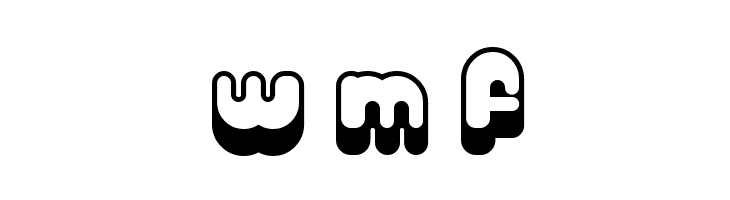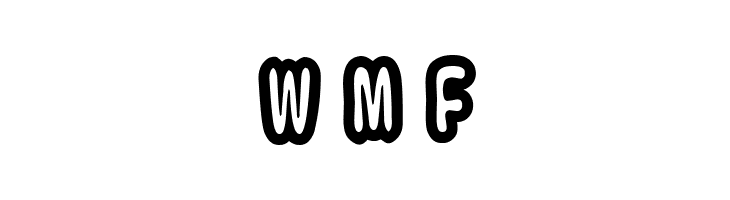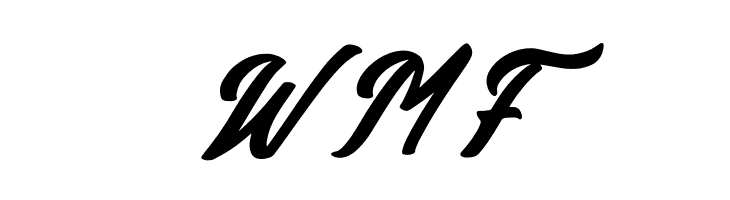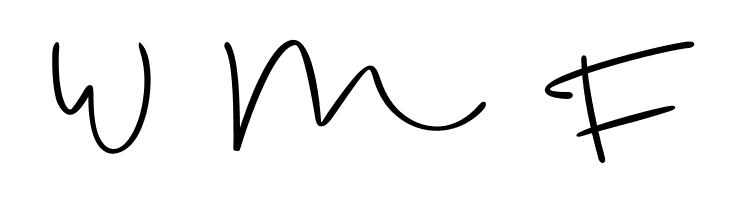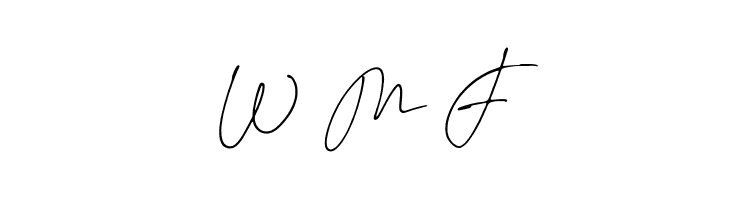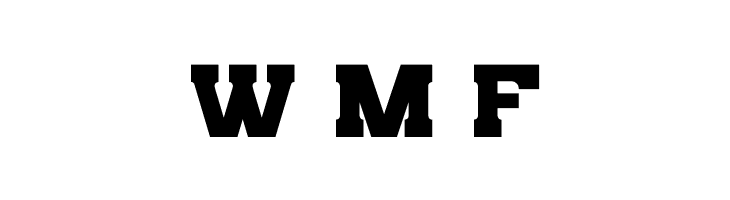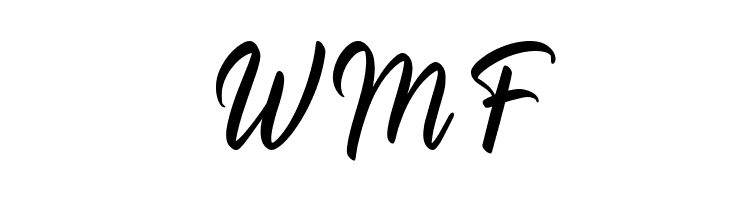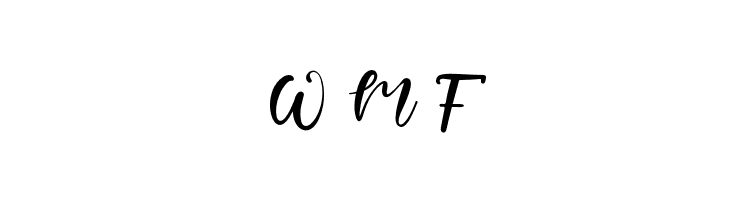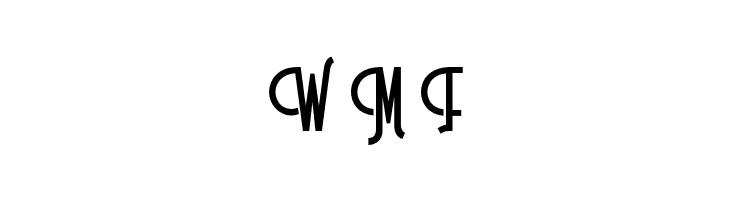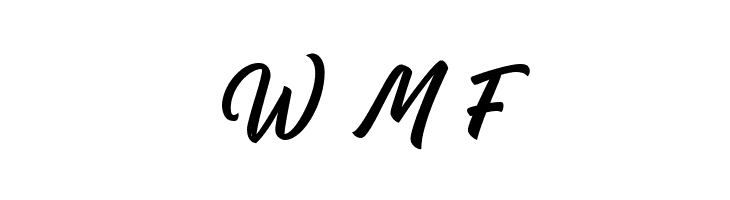
Billy Jean Style Bold Font
A bold, cursive font with interconnected characters and a playful style.
Billy Ohio Font
A bold, expressive script font with a brush-like texture and dynamic letterforms.
Billy Scriptian Font
A bold, cursive script font with elegant, flowing strokes.
Billy Signature Italic Font
A cursive, handwritten-style font with elegant, flowing strokes.
Billy Smith Font
A fluid, cursive font with interconnected letters and a natural handwriting style.
Billy The Bunny Font
A playful, bold font with rounded, cartoonish letters and a bubble-like outline.
BILLY THE KID Font
A bold, slab serif font with a vintage Western aesthetic.
BILLY THE KID Bold Font
A bold, slab serif font with a Western, rugged style.
BILLY THE KID Bold Italic Font
A bold, italic slab serif font with high contrast and a modern vintage style.
BILLY THE KID Italic Font
A bold, italic font with a vintage western style and strong visual impact.
BILLY THE KID-Hollow Font
A bold, hollow Western-style font with a vintage flair.
BILLY THE KID-Hollow-Inverse Font
A bold, hollow, inverse font with sharp, angular edges for a modern look.
BILLY THE KID-Inverse Font
A bold, Western-inspired slab serif font with high contrast and strong serifs.
Billy_Milly Font
A playful, handwritten font with dynamic and irregular strokes.
Billy's Hand Medium Font
A playful, casual handwritten font with an organic flow and friendly appearance.
Billy's Hand Thin Medium Font
A casual, handwritten font with thin, uneven strokes and playful curves.
BillyanaPersonalUseOnly Font
A cursive, handwritten-style font with elegant, flowing characters.
BillyanaPersonalUseOnly Font
A modern cursive font with elegant, flowing characters.
Billyard Font